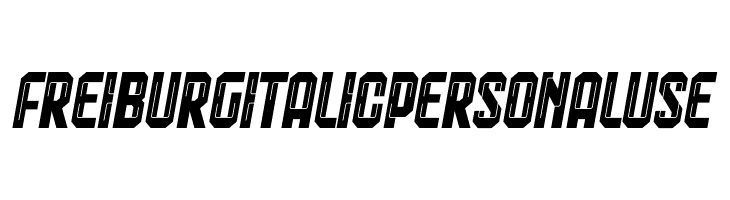
A bold, italic, and dynamic font with high contrast and angular design.
A bold, futuristic, and angular italic font with a geometric design.
A bold, italicized font with a dynamic, futuristic style.